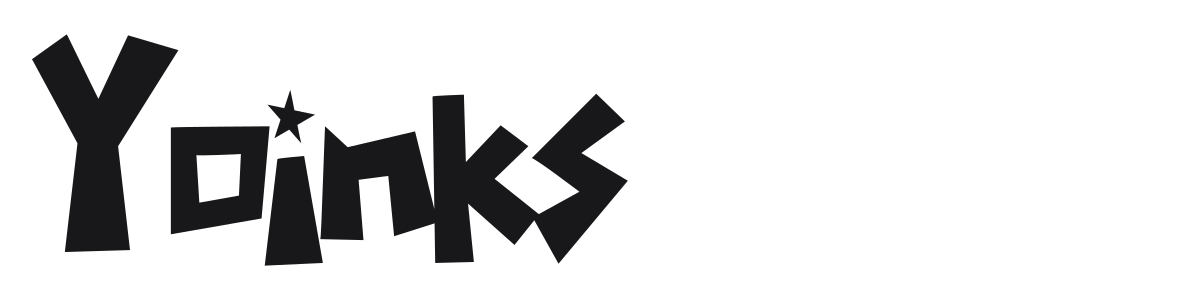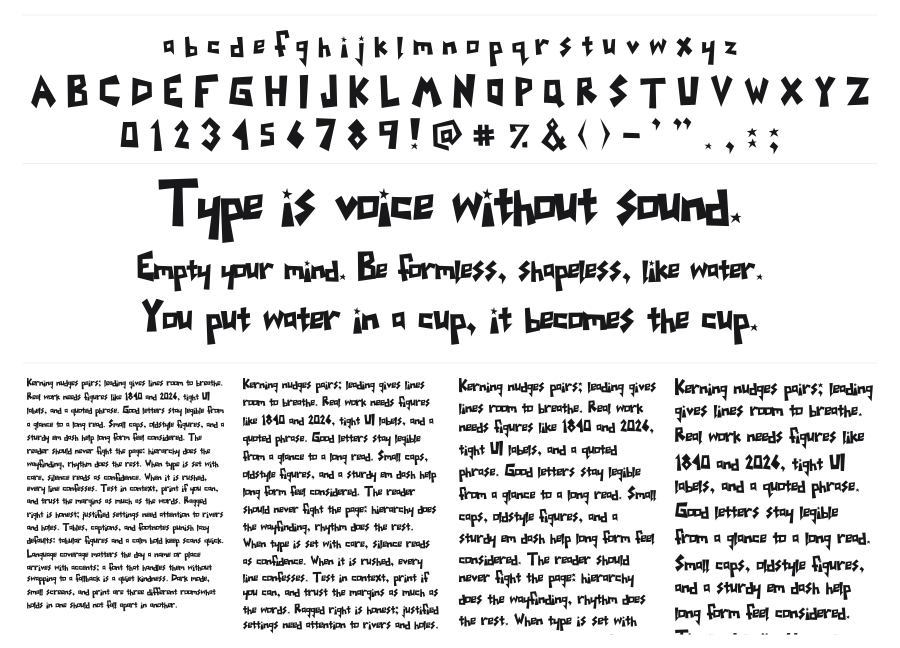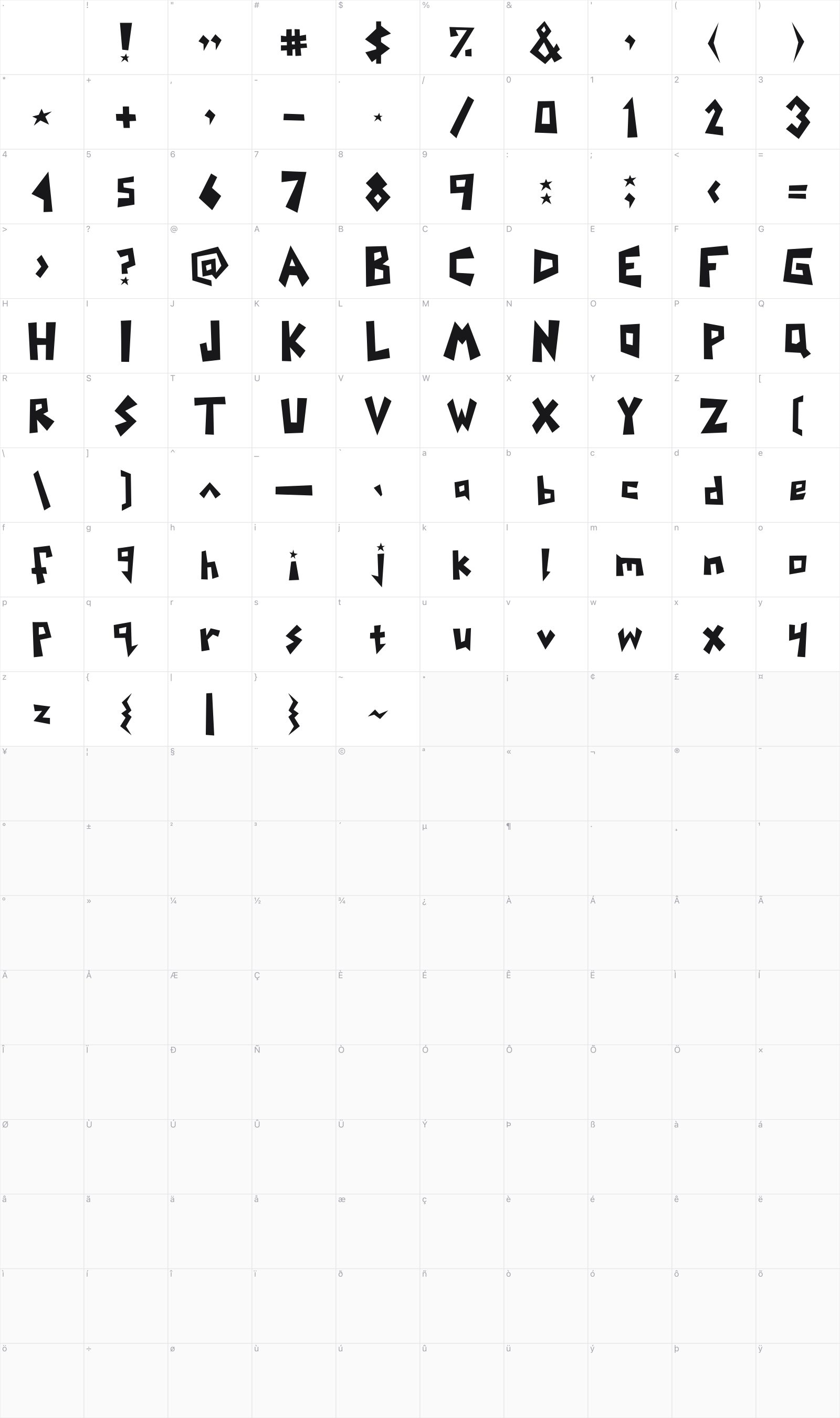
Yoinks
by A.J. Palmer
Yoinks is a chunky 1990s grunge display font with thick, angular characters that wobble on an uneven baseline. Each letter looks hand-chopped, with jagged cuts and flat terminals that give it a raw, cut-and-paste zine energy. A strong personality pick for music, street culture, and anything that should feel a little unhinged.